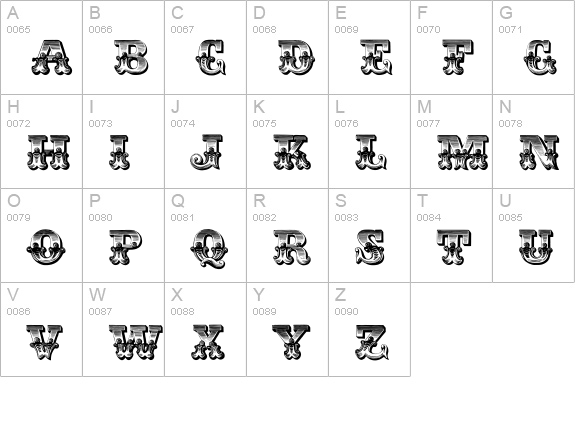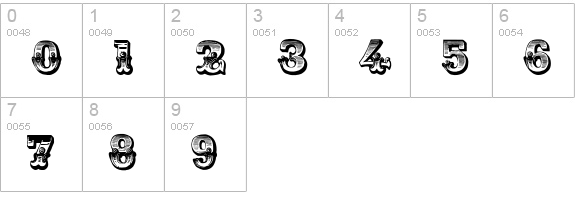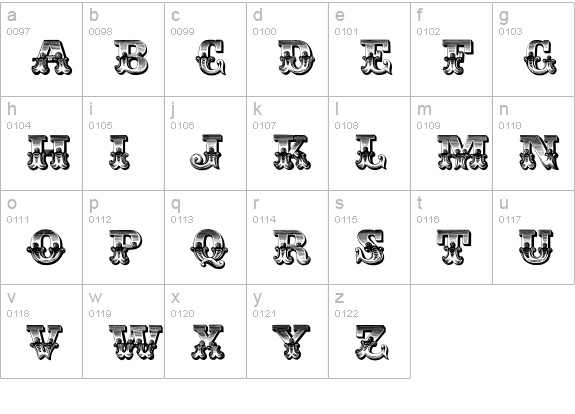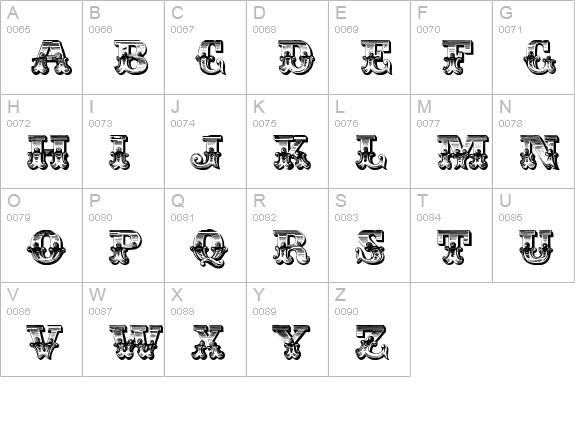
Romantiques Font Details
Romantiques font is a whimsical and elegant typeface that exudes romance and charm. With its graceful curves and delicate strokes, this font is perfect for adding a touch of sophistication to any project. Whether you're designing wedding invitations, love letters, or romantic quotes, Romantiques font will make your text come alive with its timeless appeal. Best of all, Romantiques font is available for free download at FontsMarket.com. This means you can easily access this beautiful typeface and incorporate it into your designs without any cost. So why wait? Enhance your projects with the enchanting beauty of Romantiques font today!